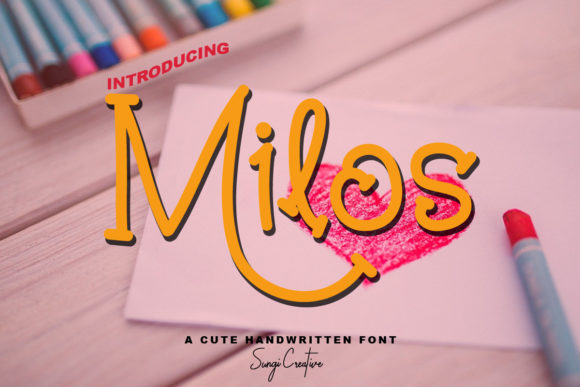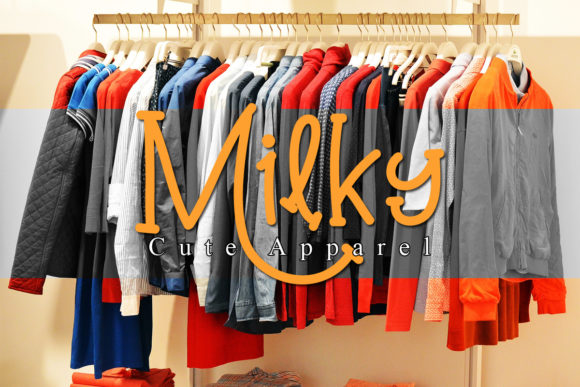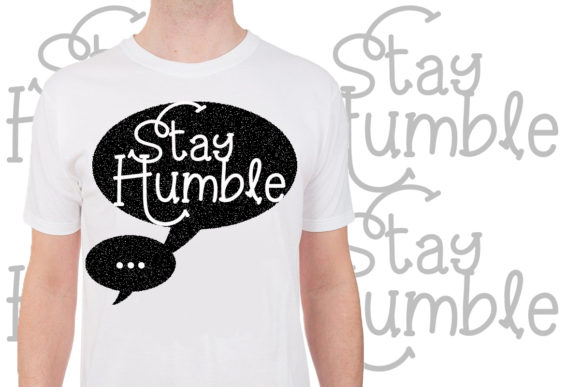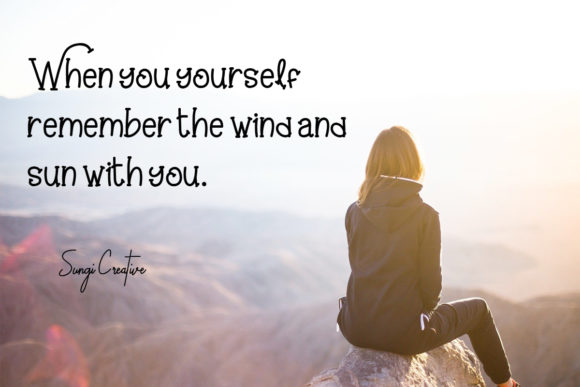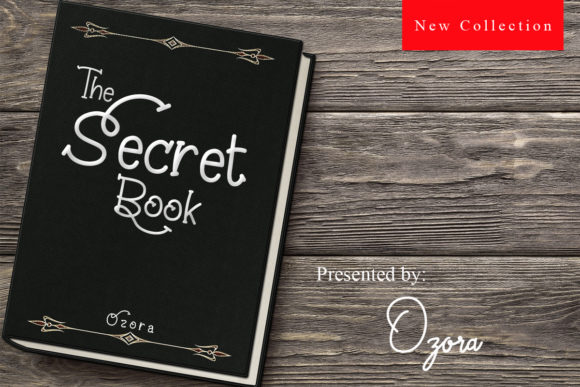
Milos Font
About Milos Font
Milos is a cute and casual script font with an incredibly friendly feel. Whether you’re looking for fonts for Instagram or calligraphy scripts for DIY projects, Milos will turn any creative idea into a true piece of art!